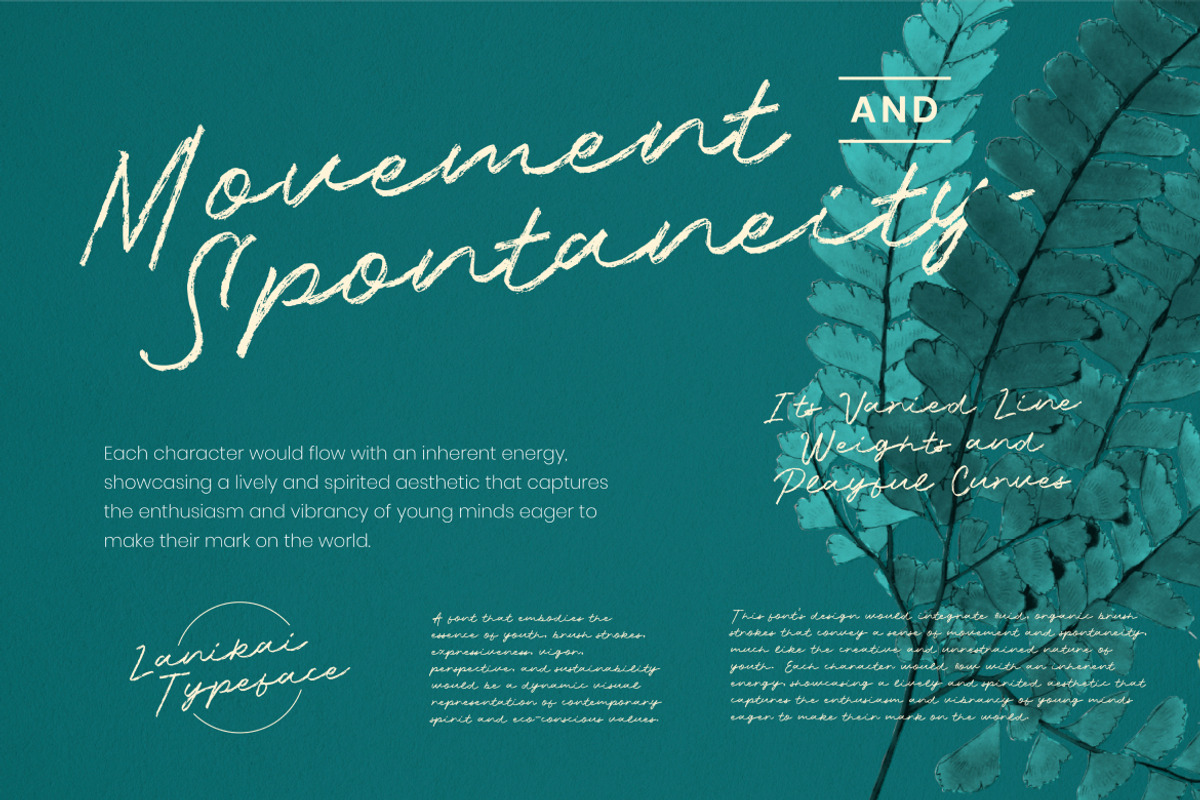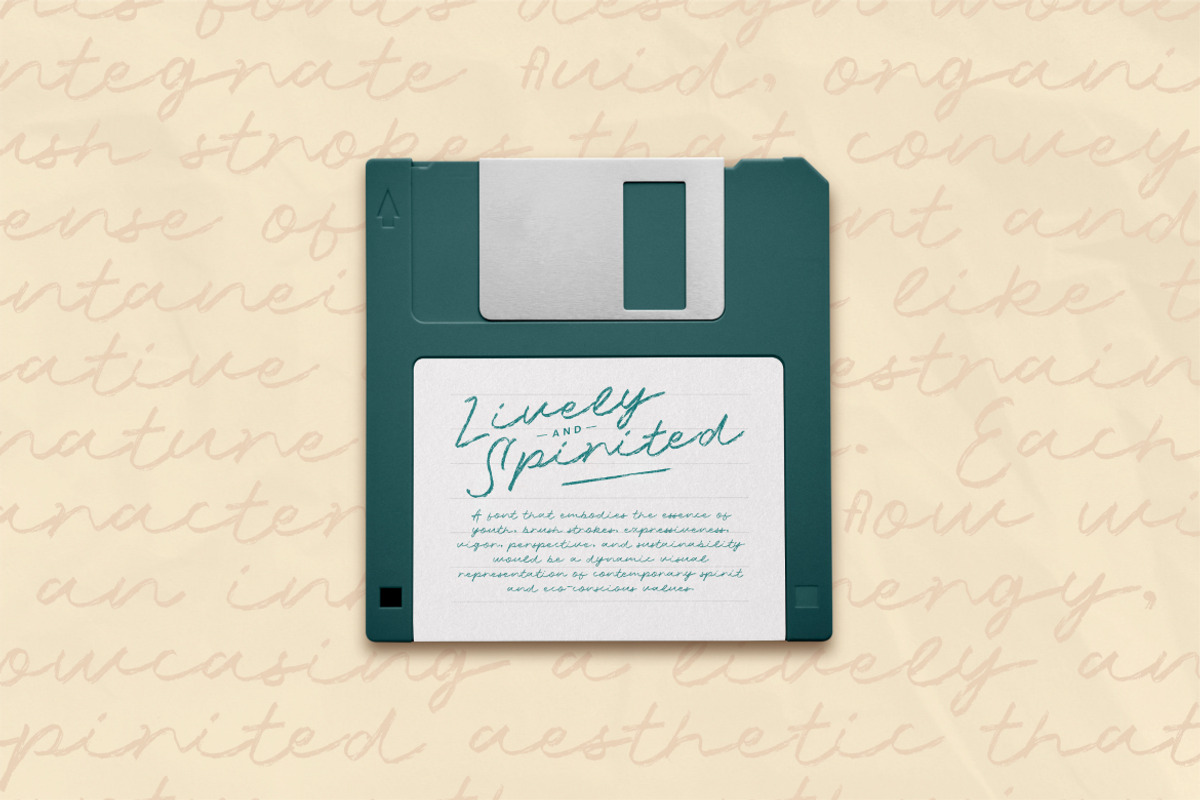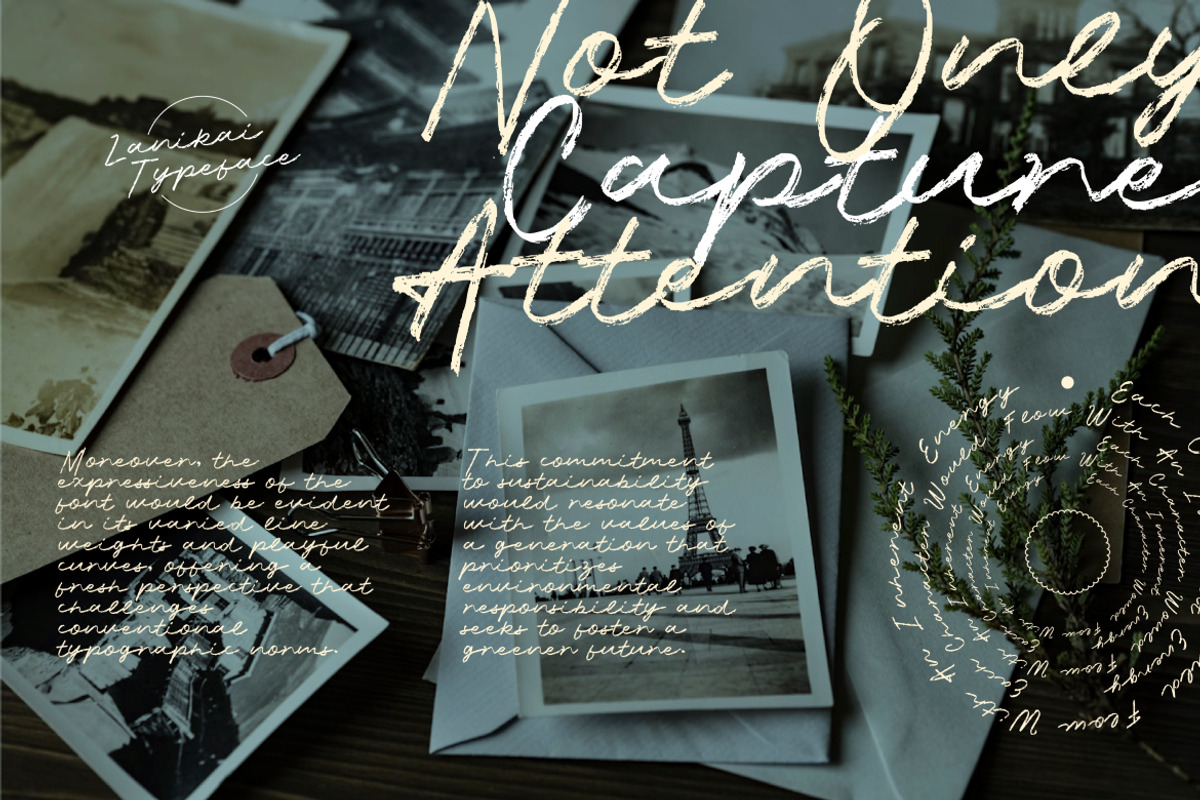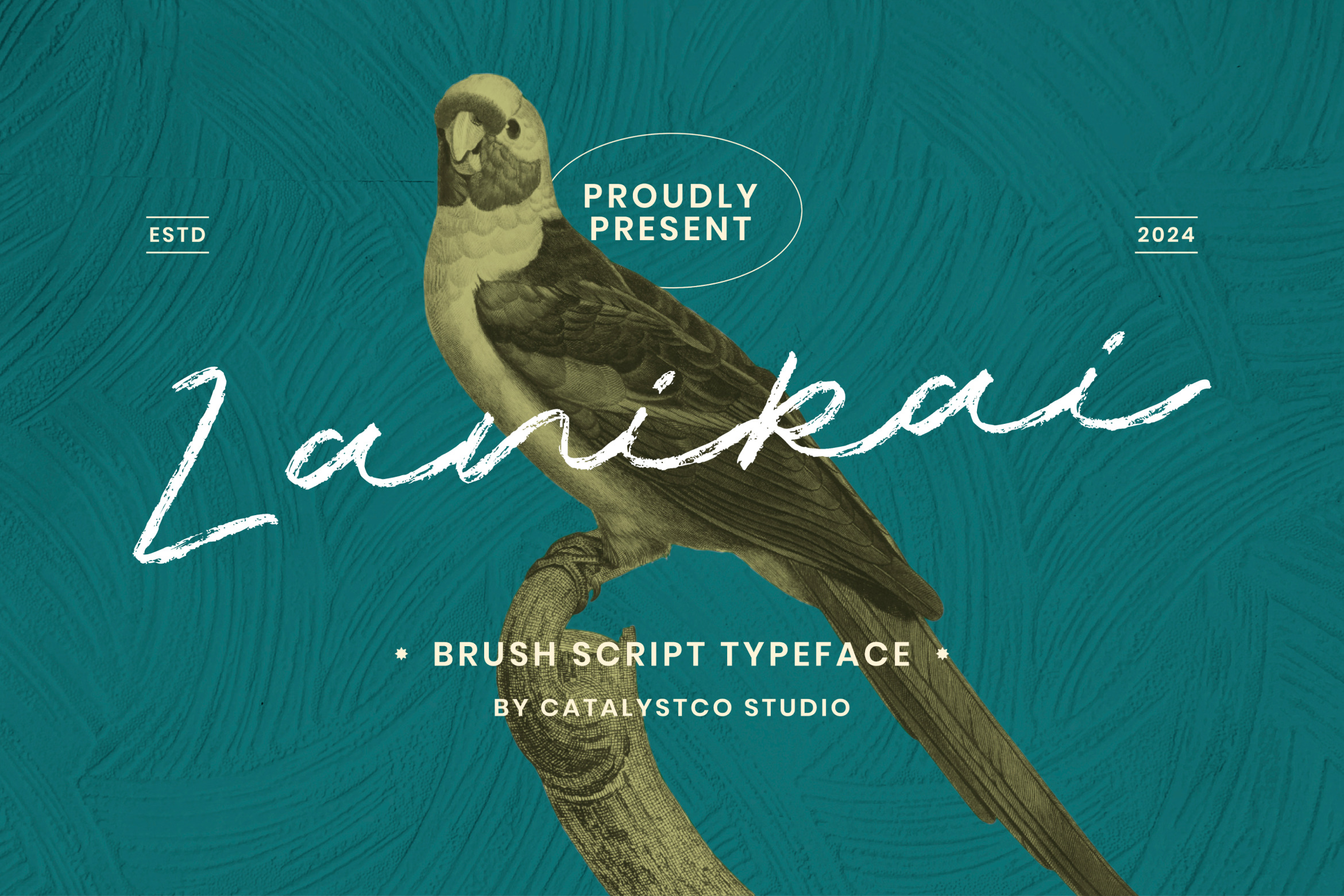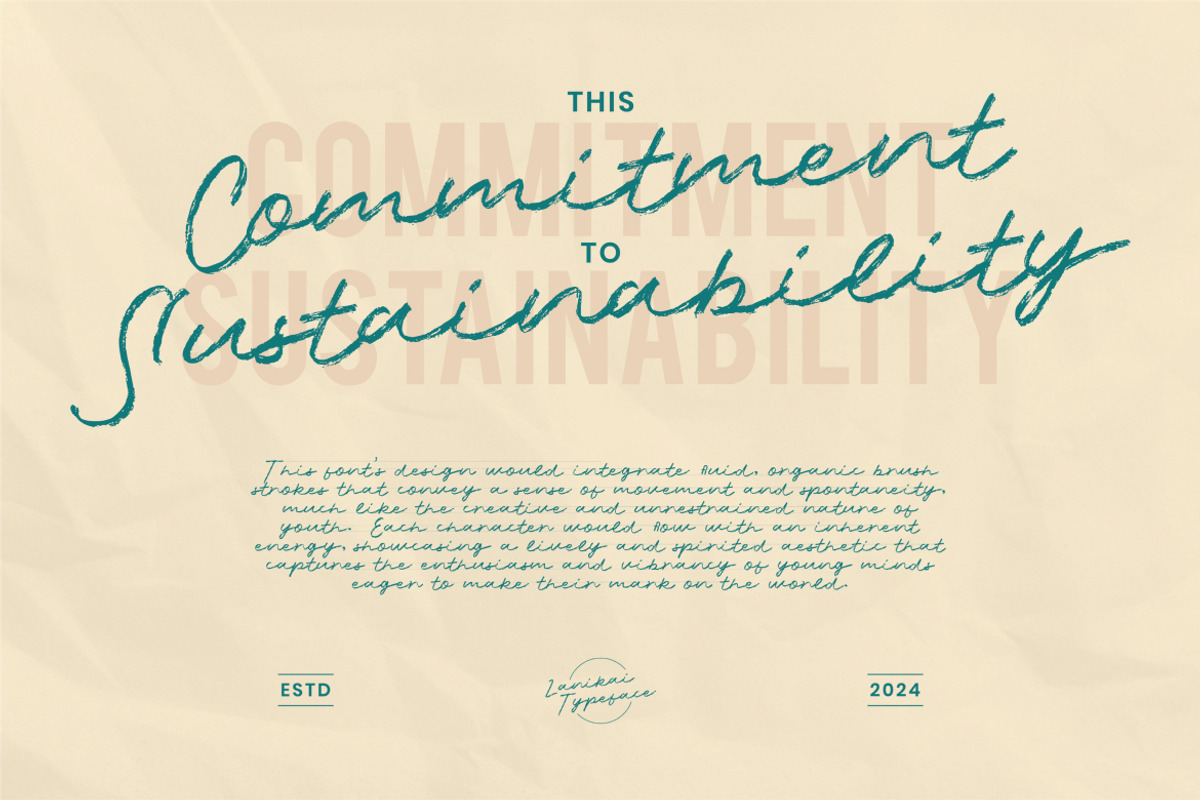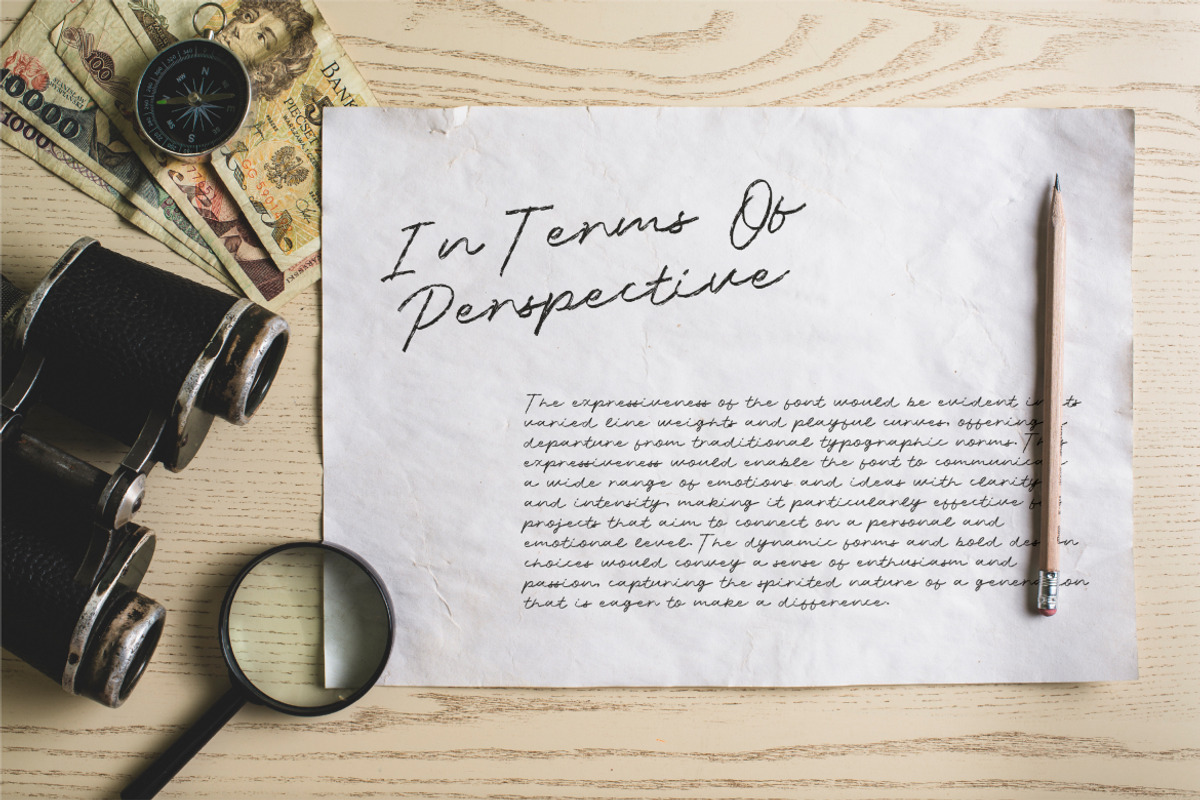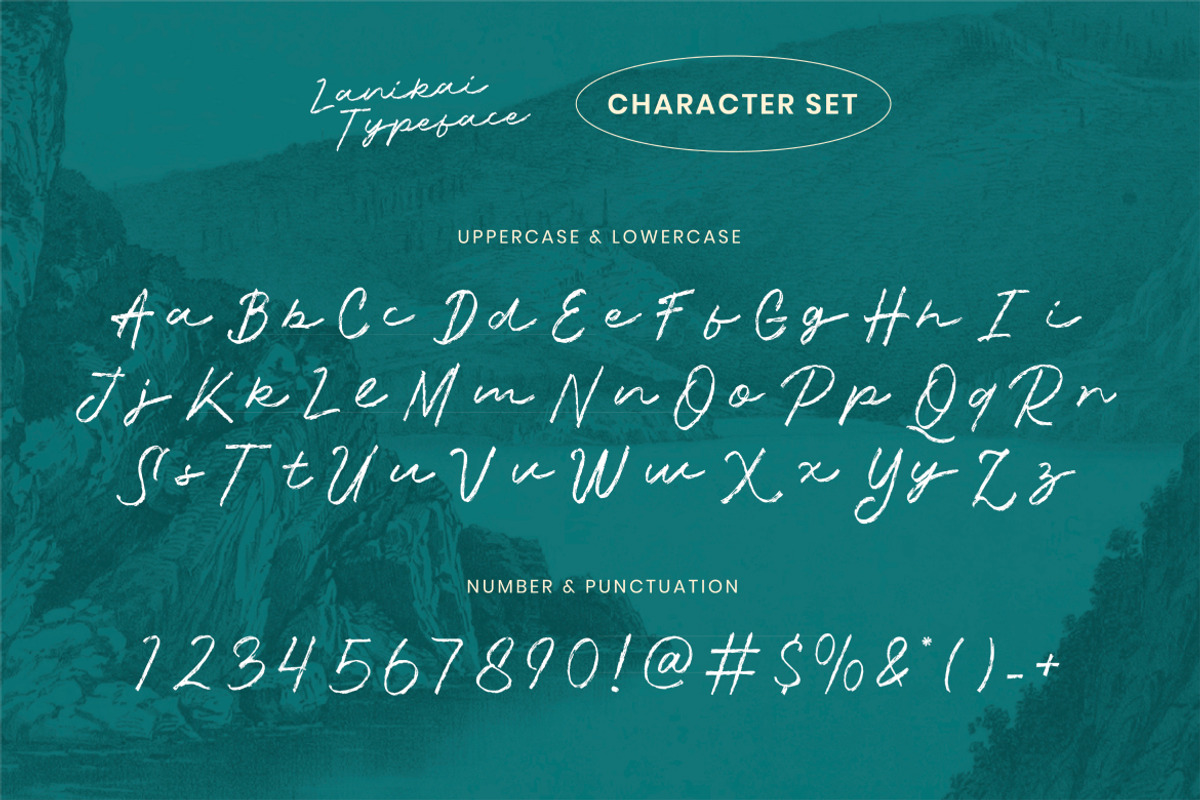
Lanikai Brush Script Font
Lanikai Brush Script Font typeface excellent used for the manufacture quote text, logotype, header magazine, and many more.
- Numeral & Punctuations